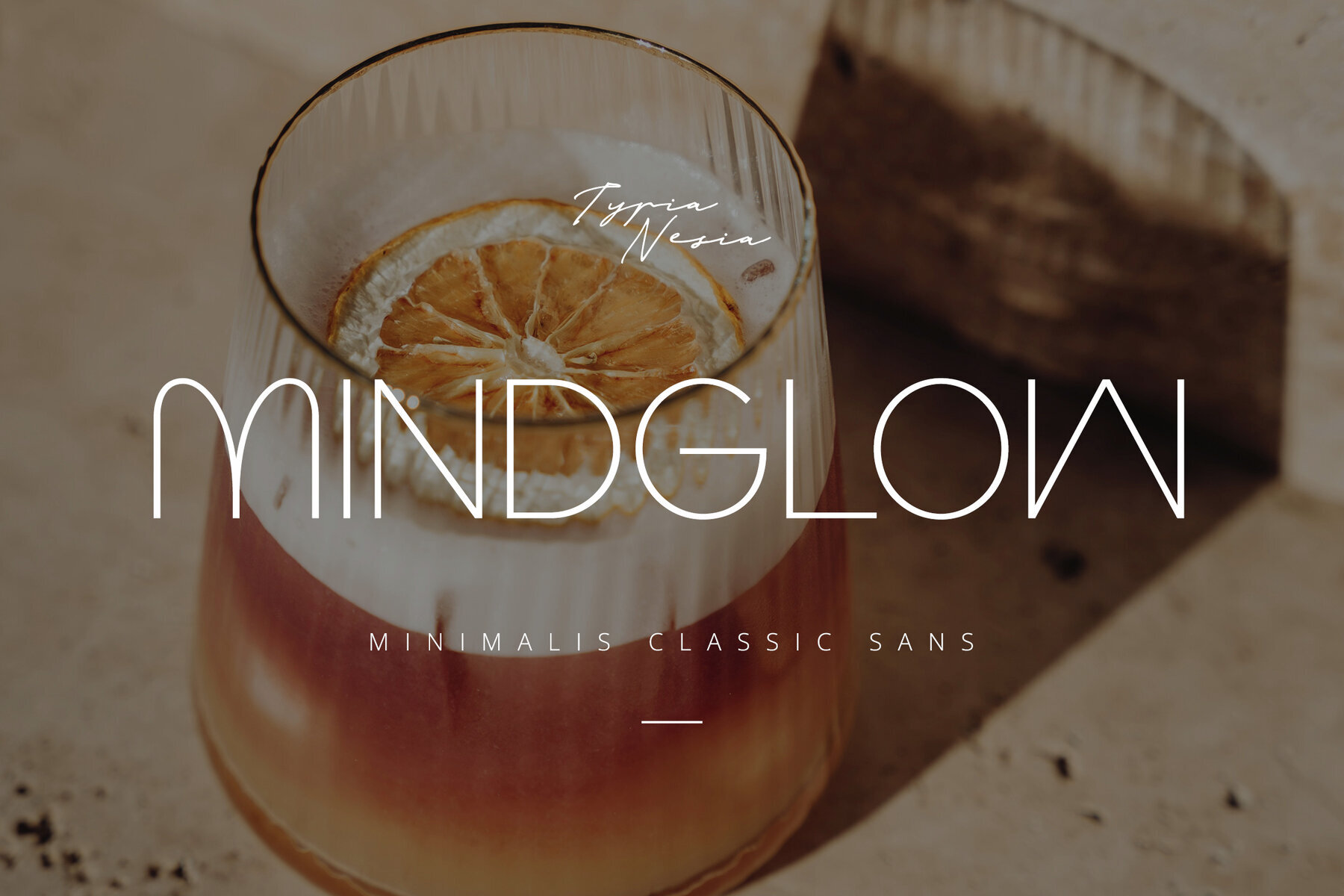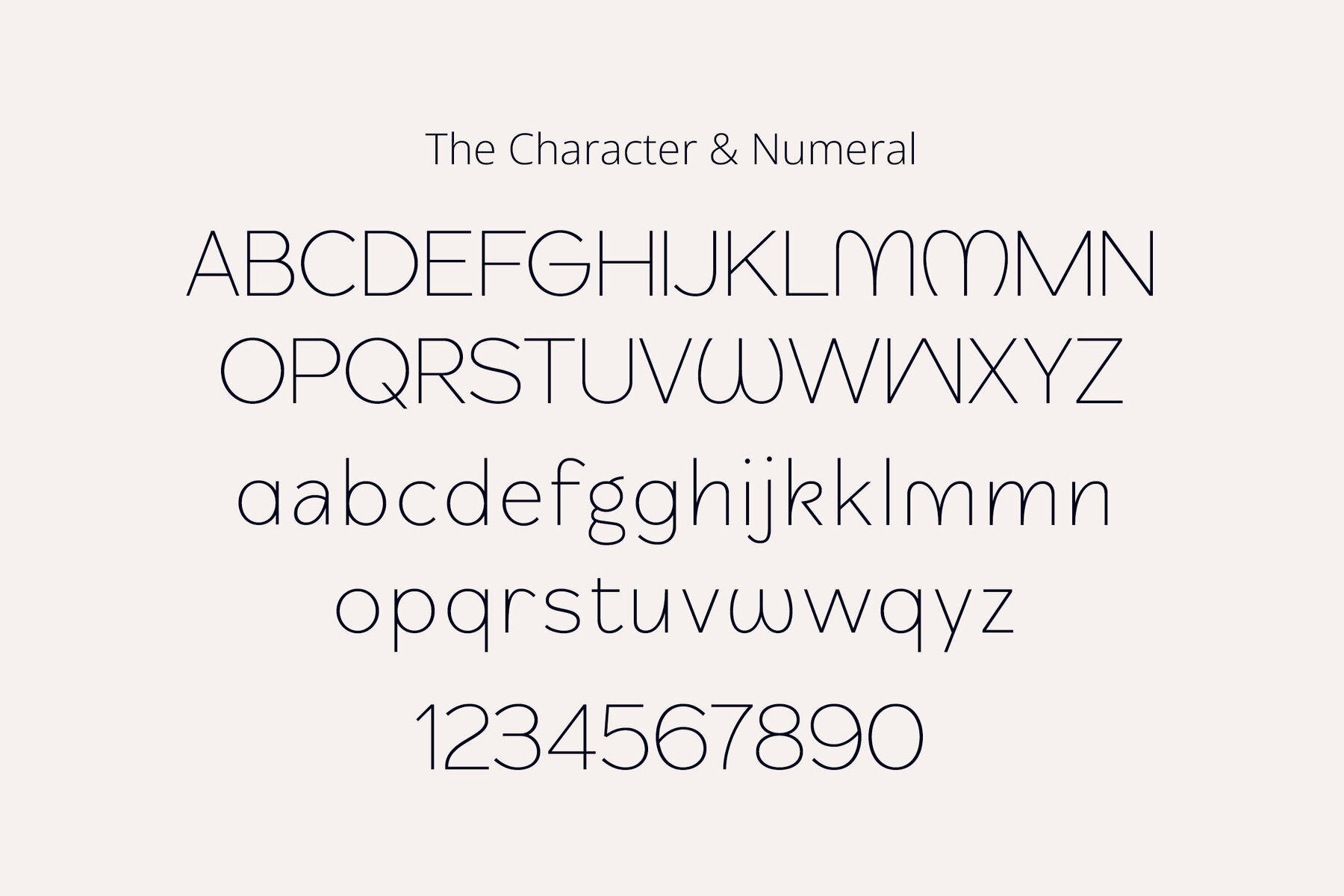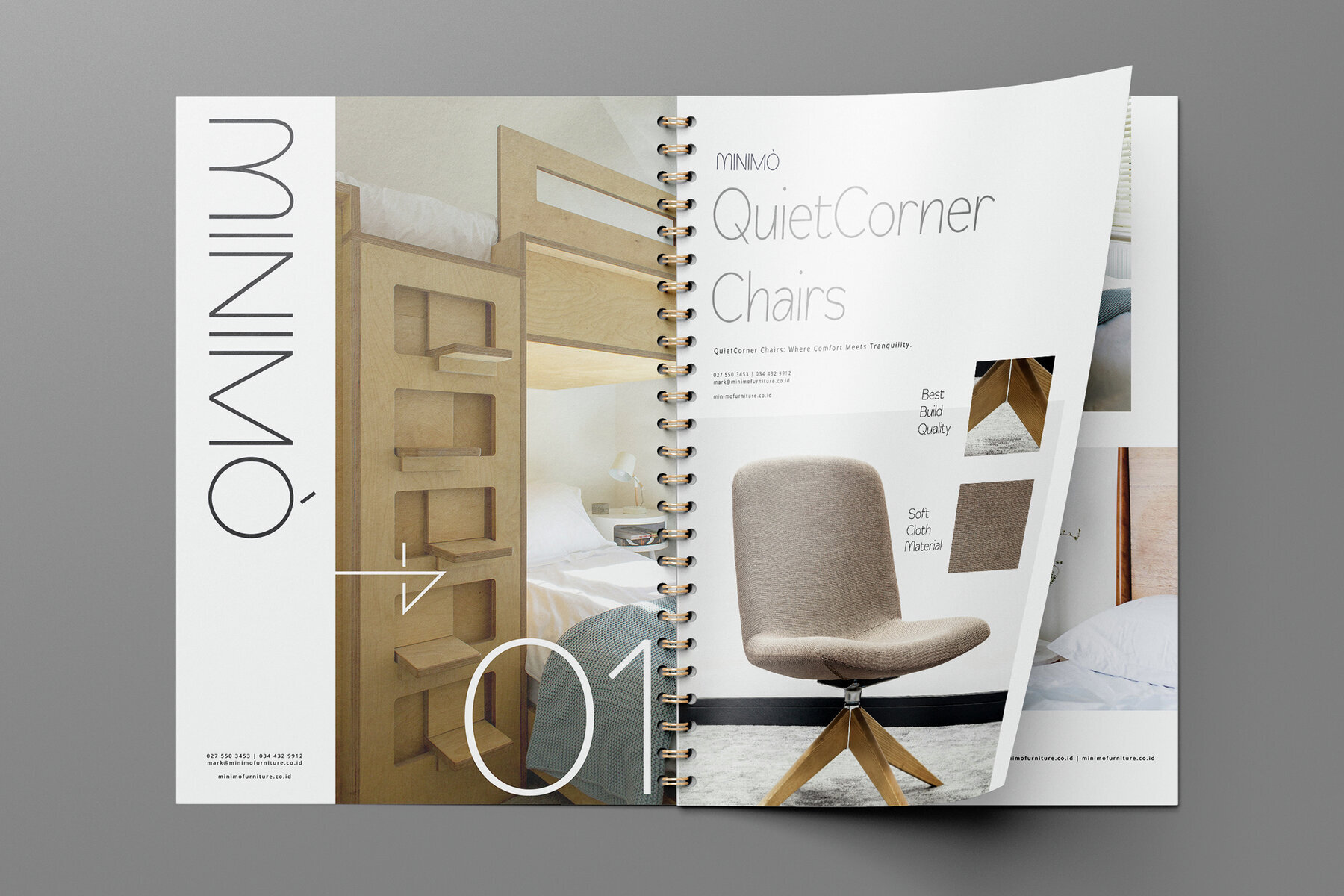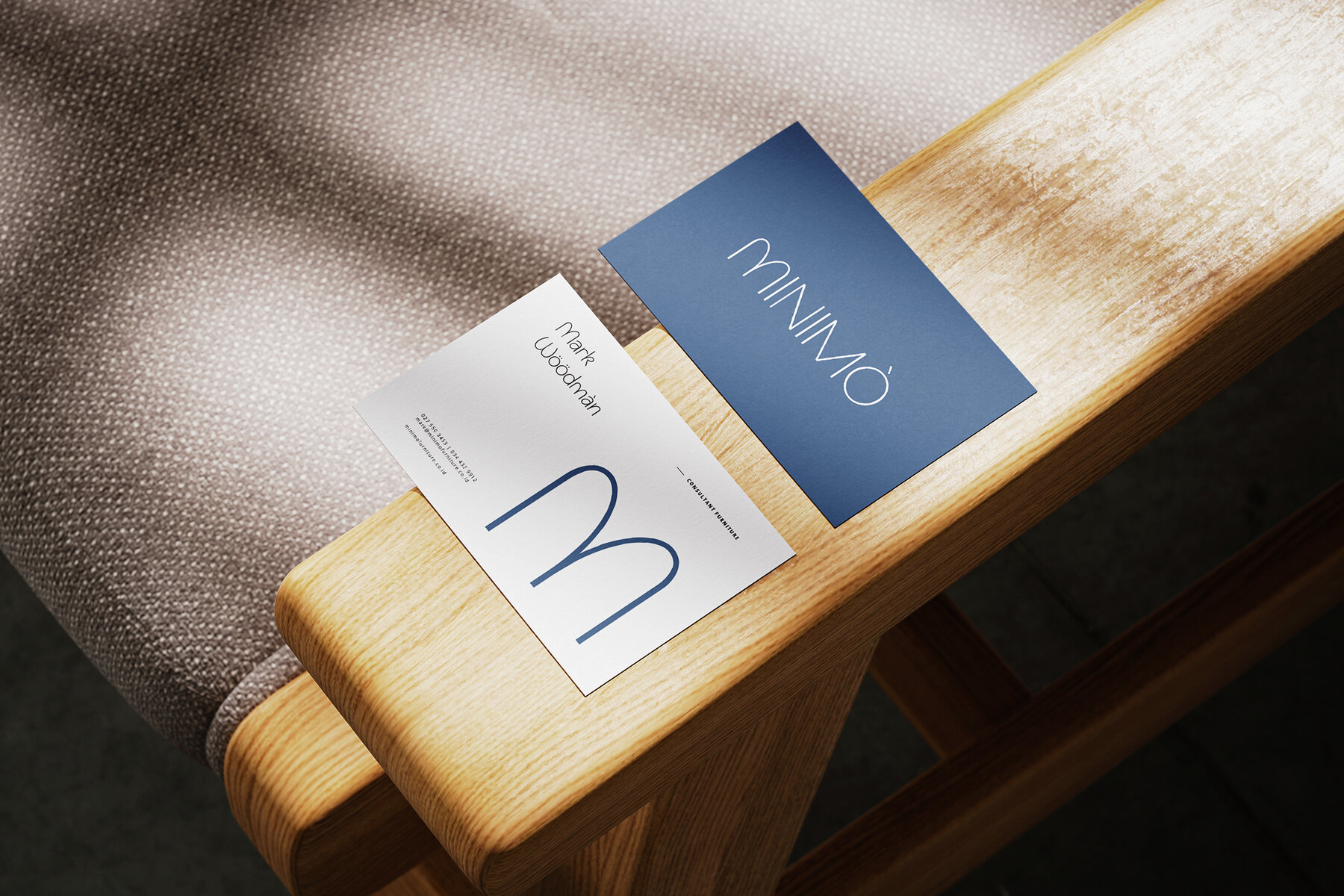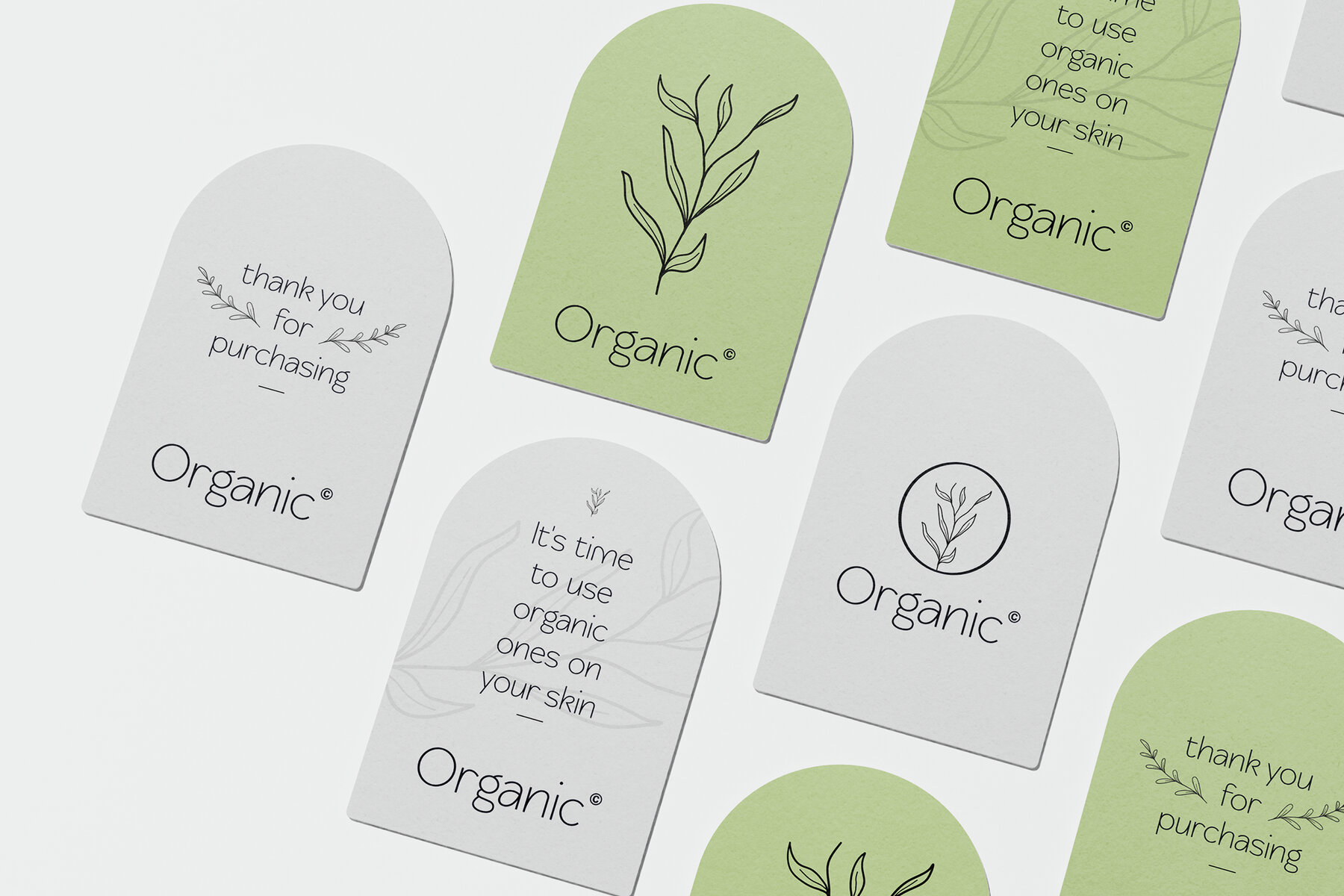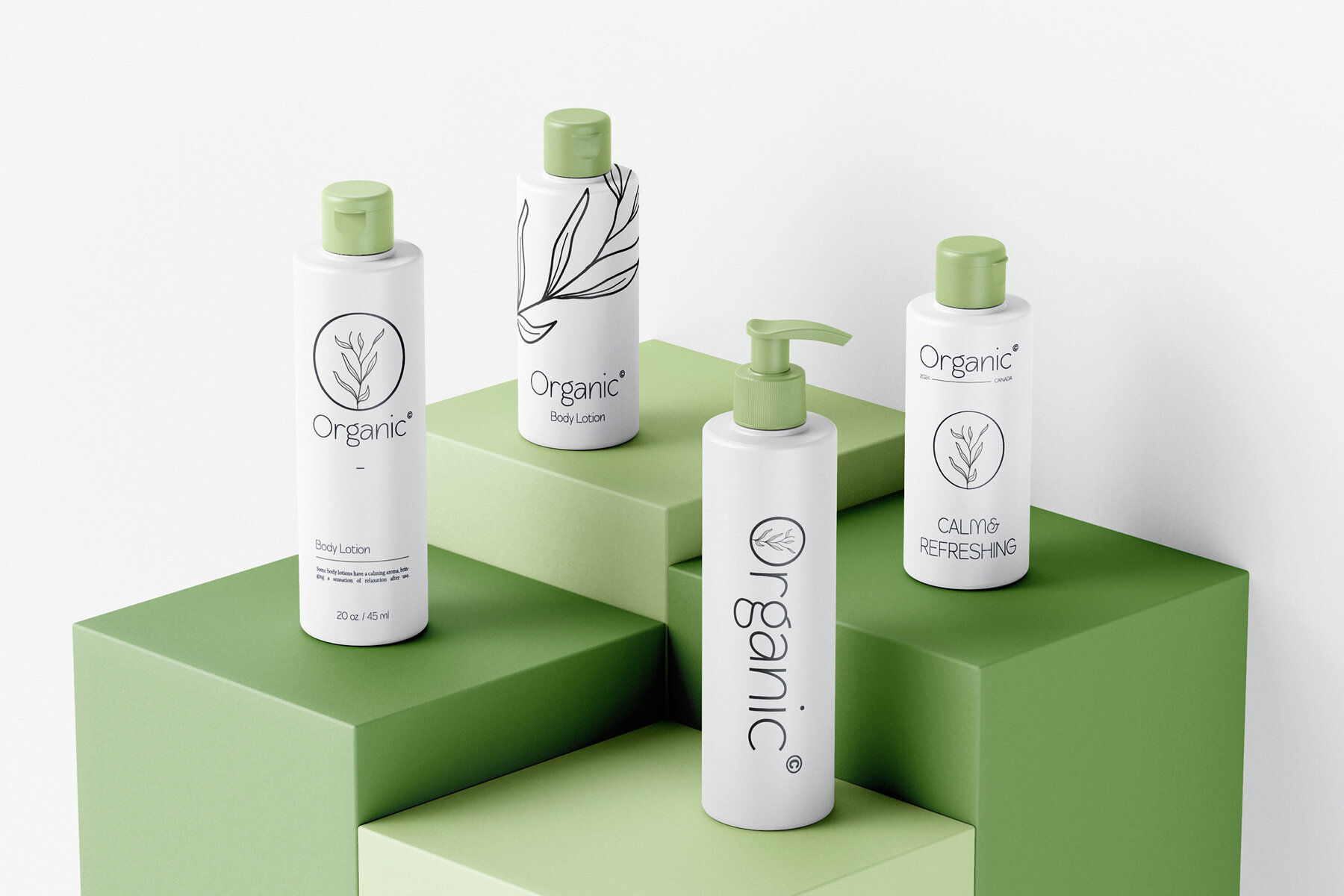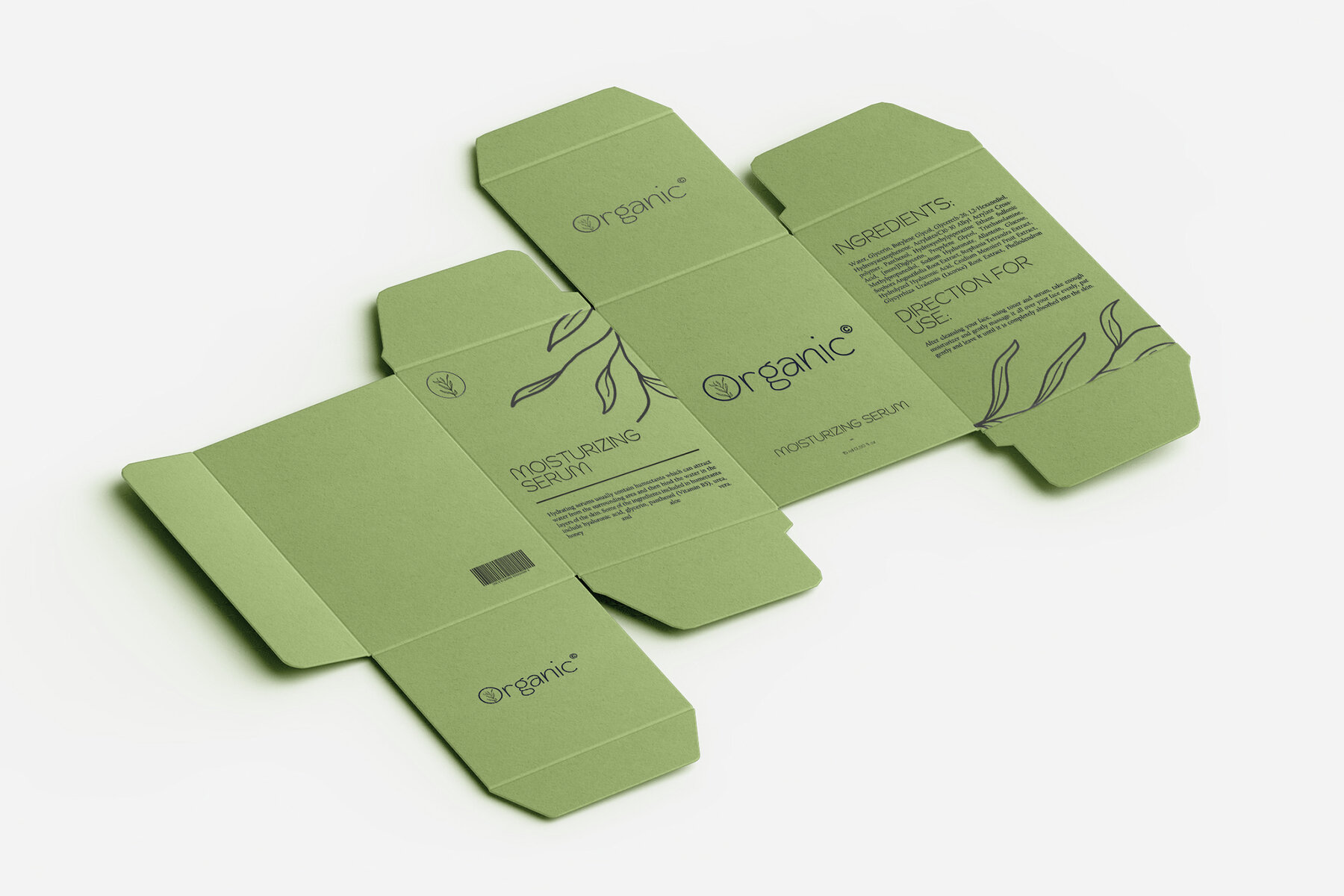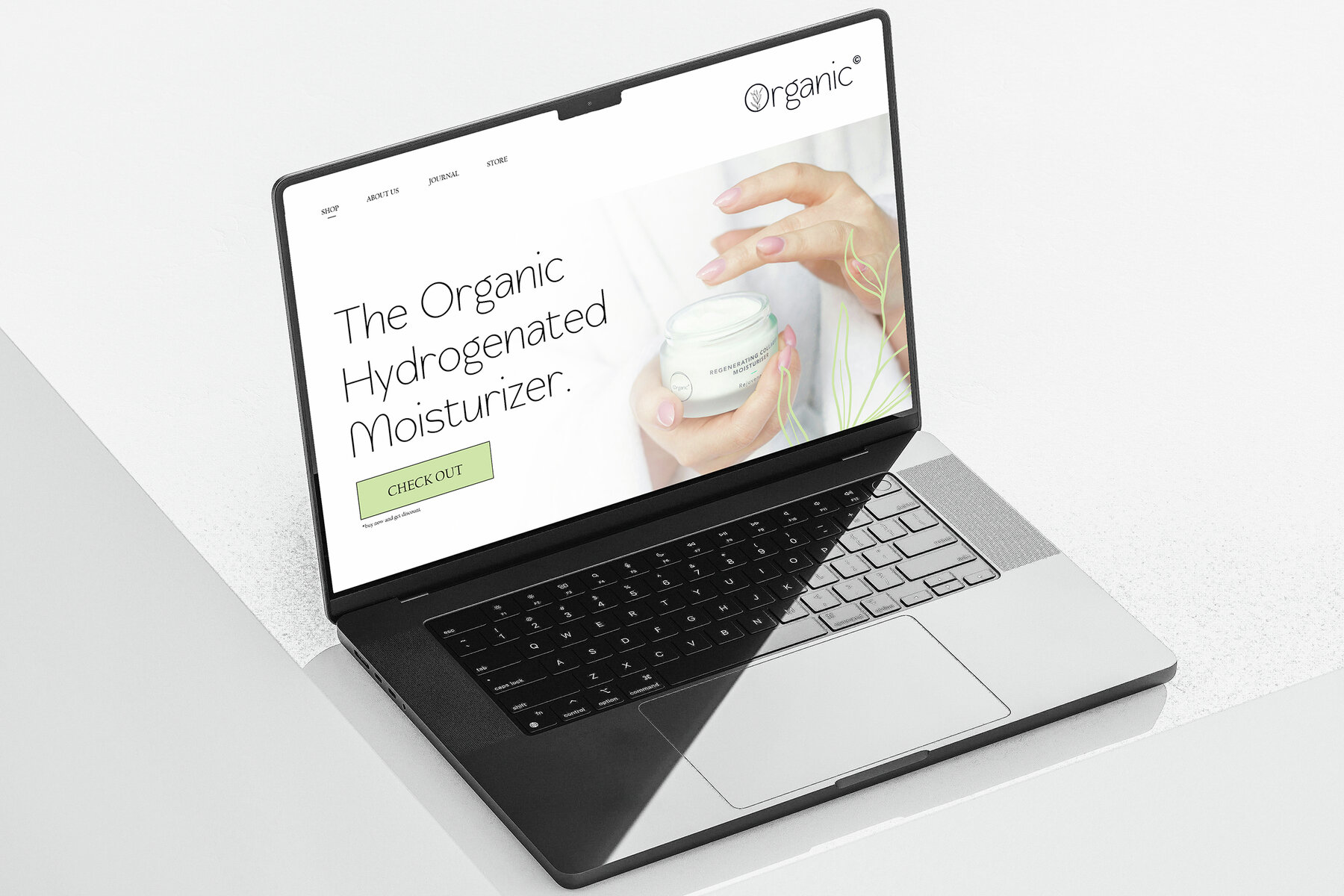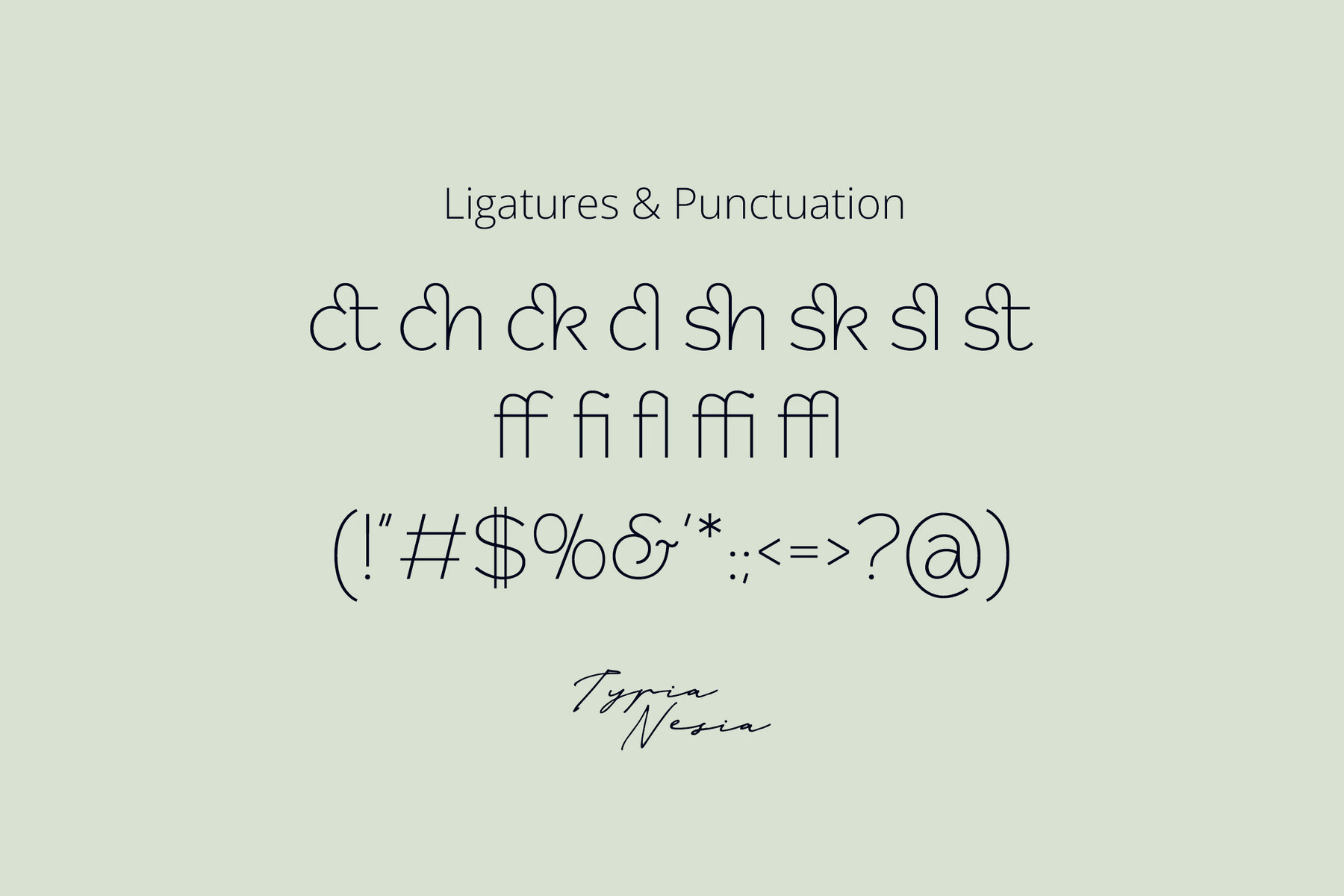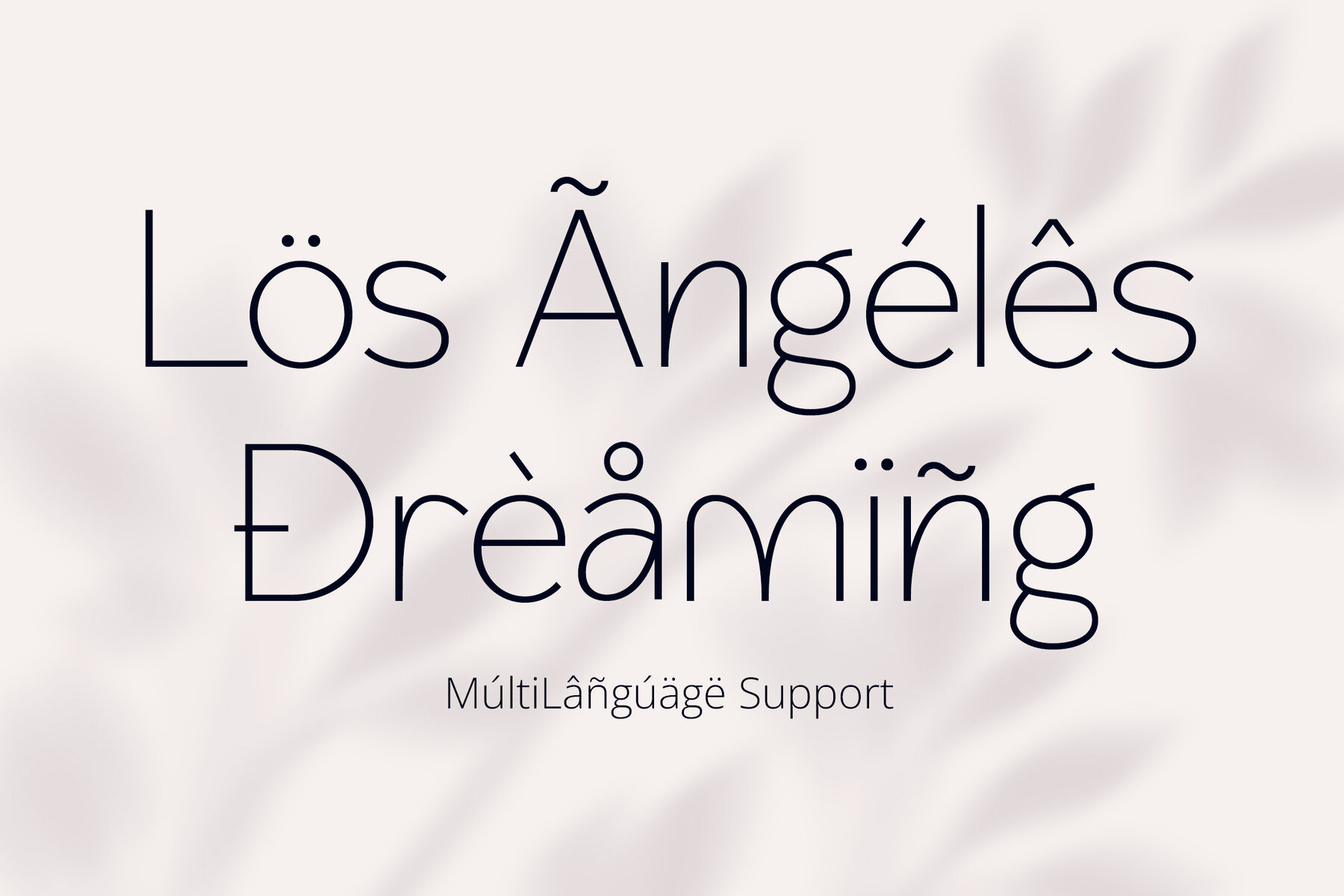
Mindglow Font
Mindglow Regular
Mindglow is a Minimalis Classic Sans font that combines simplicity with timeless elegance. Its sleek lines and balanced proportions make it suitable for a wide range of design projects. This font is versatile and can be used across various applications, including branding, invitation design, editorial design, web design, packaging, product catalogs and more. Its classic sans-serif style adds a touch of elegance to any design while maintaining a minimalist aesthetic. Comes with ligature features, alternates, and comprehensive support for both uppercase and lowercase letters, punctuation marks, and numerals. These features offer designers flexibility and creative freedom in their typographic processes. Additionally, the font provides multilingual support, ensuring accessibility for users worldwide. Crafted with expertise in minimalist design principles and typographic clarity, Mindglow embodies the essence of timeless simplicity and classic elegance.